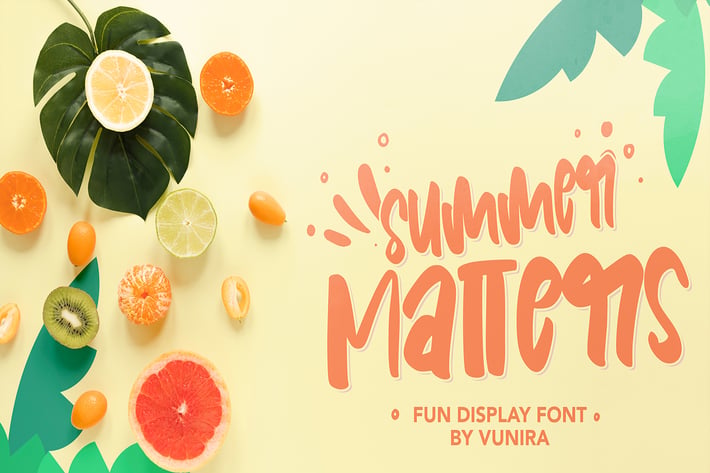
Summer Matters | Fun Display Font
Summer Matters | Fun Display Font with a calligraphy style, So beautiful on invitation like greeting cards, branding materials, business cards, quotes, posters, and more!